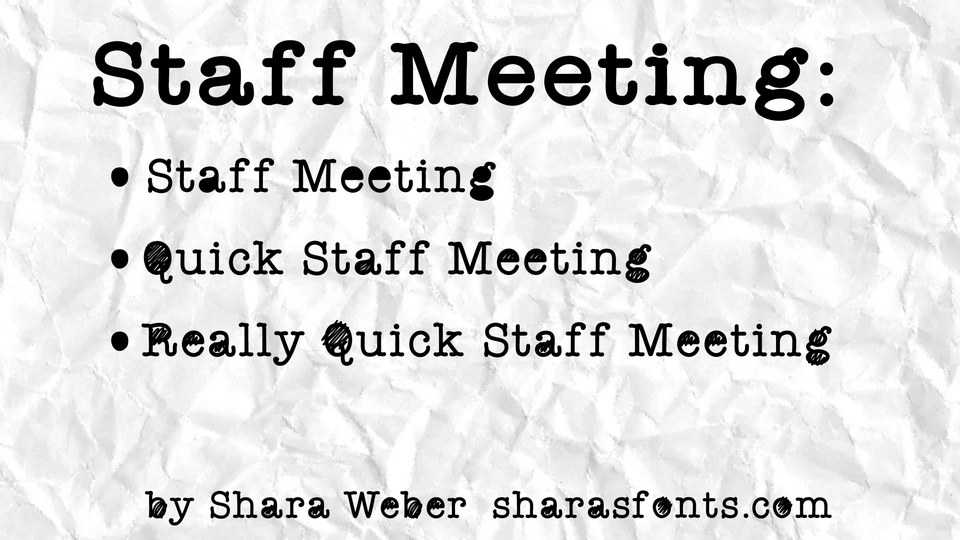
Download Staff Meeting font, a handmade typewriter typeface with friendly and fun look. With three styles, Staff Meeting is perfect for texts, notes, quotes and other artworks.
Designer: Shara Weber